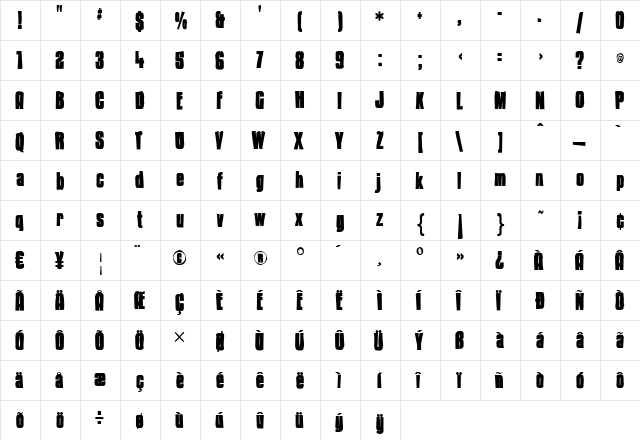
Kenyan Coffee Ink Regular
| Designer | Larabie Fonts |
Design Context for Kenyan Coffee Ink Typeface
Kenyan Coffee Ink is a composed and adaptable typeface that performs quietly and consistently across a wide range of design contexts.